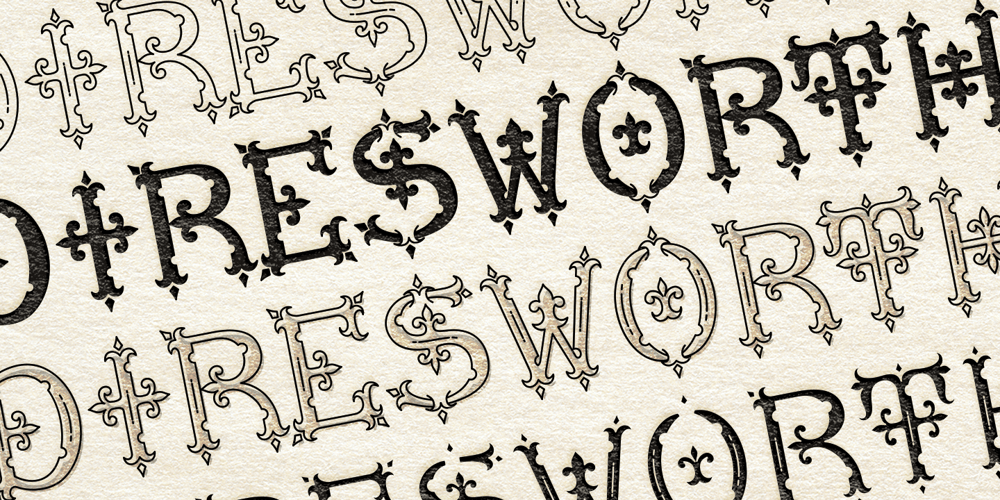
MFC Diresworth Monogram Font Family was designed by Jim Lyles, Brian J. Bonislawsky and published by Monogram Fonts Co.. MFC Diresworth Monogram contains 6 styles and family package options. The source of inspiration for MFC Diresworth Monogram is an alphabet set from the book, “Monograms and Alphabets for Combination” by Dollfus Mieg & Cie, first published in the 1890’s. Originally developed as a Capitals only set with several ornaments to be used for embroidery lettering, this elegant lettering style is now digitally remastered and updated with small caps and numerals for modern monogram typesetting use for additional functionality beyond its original intentions, extending the family with chromatic options as well.